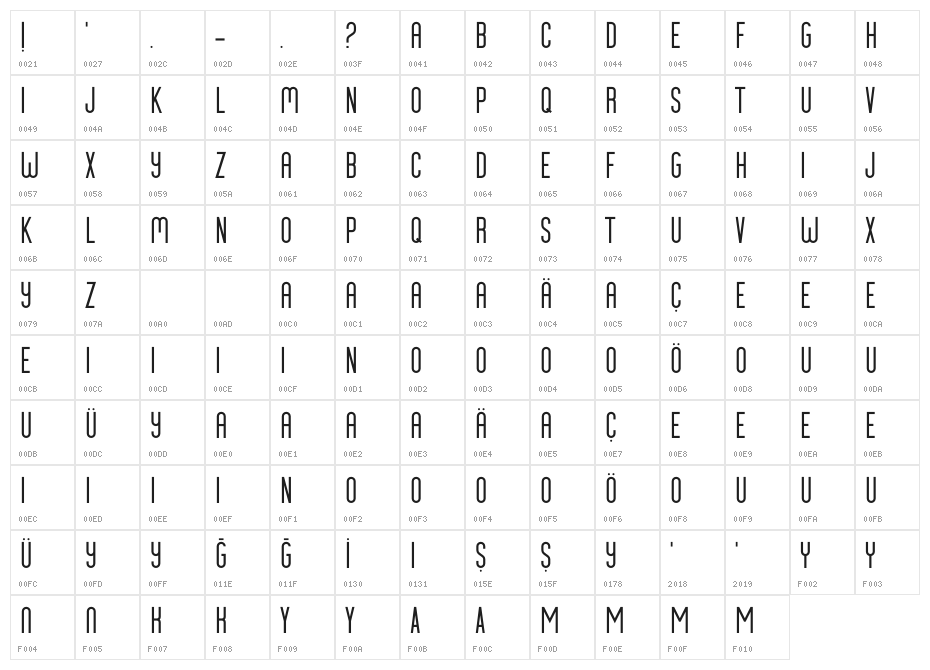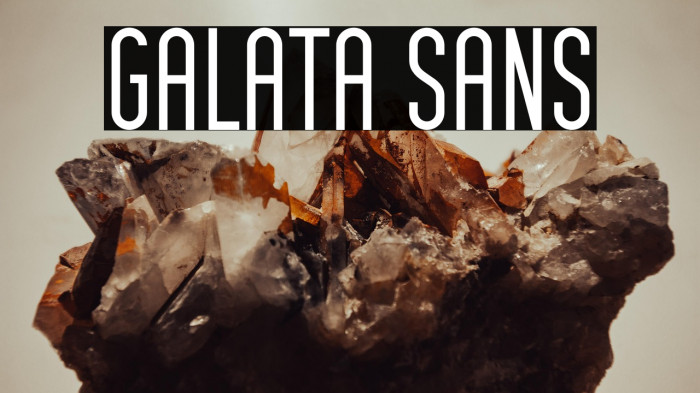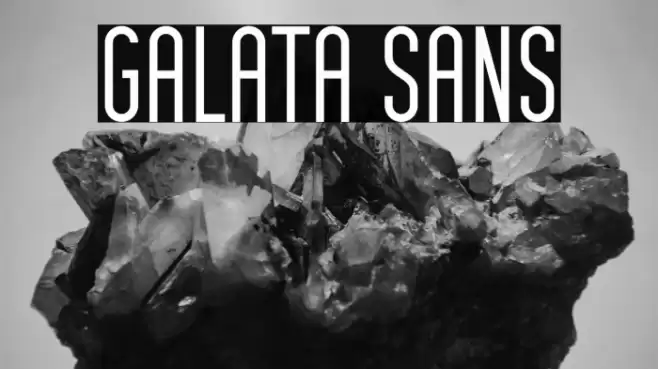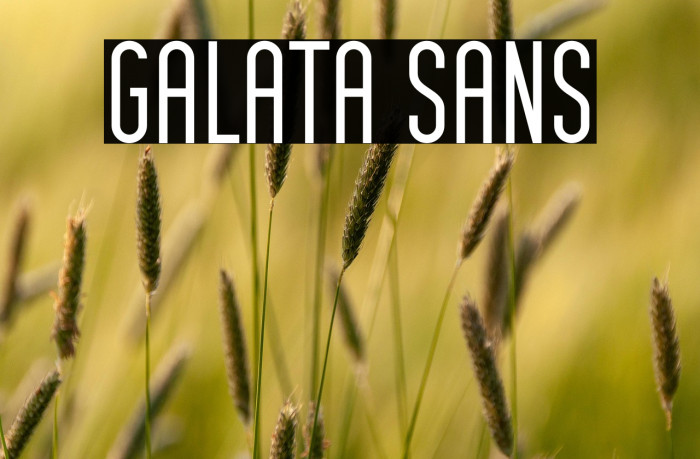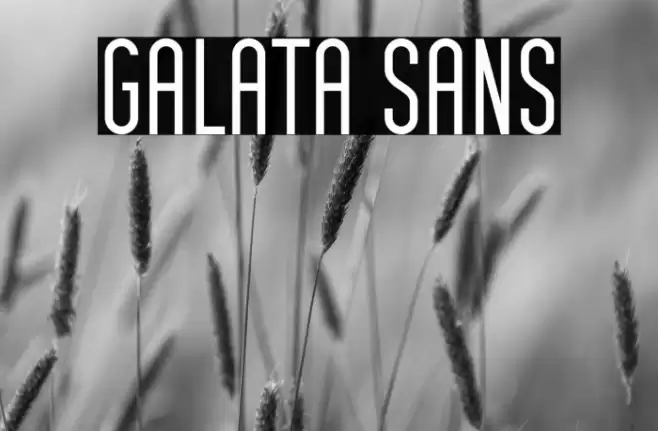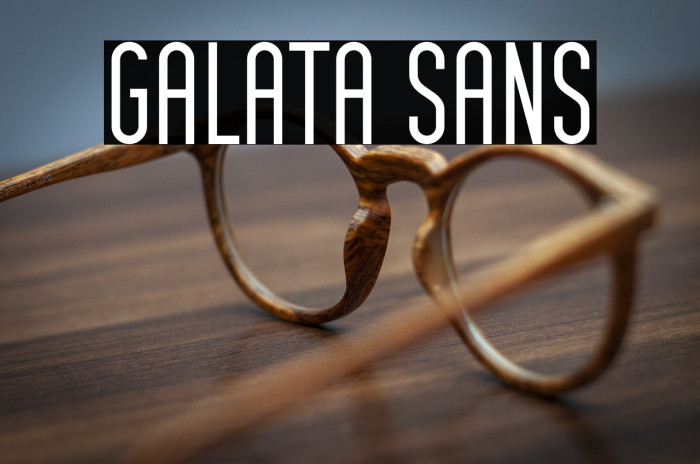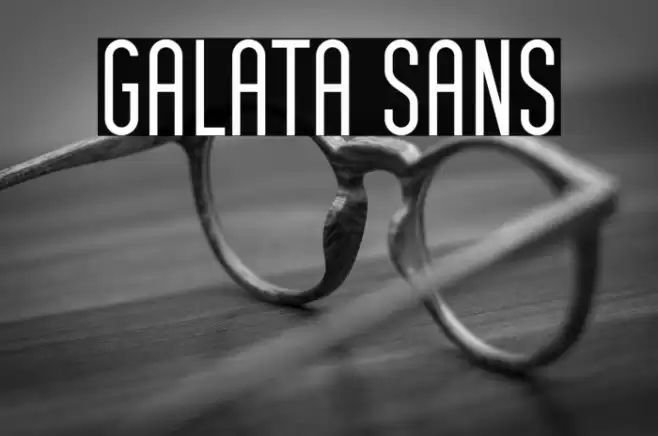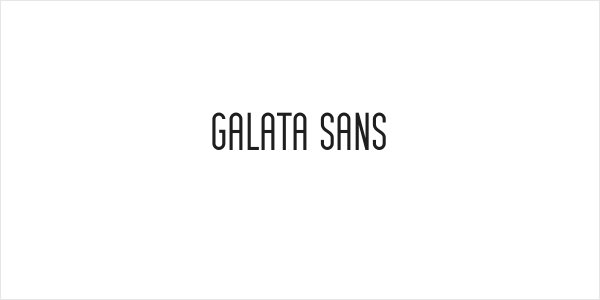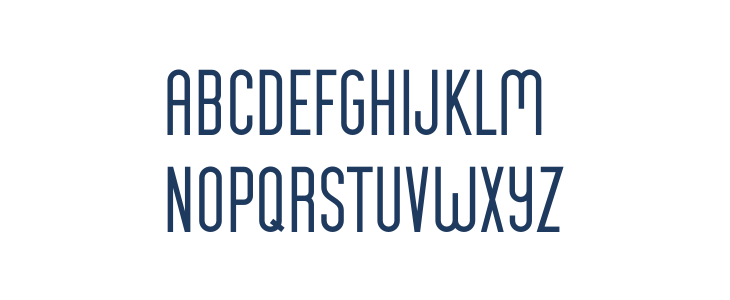
Galata Sans Font
Galata Sans Description
This font features a modern, geometric sans-serif style with clean lines and a uniform stroke width. The characters are tall and narrow, giving it an elegant and sophisticated appearance. The uppercase letters are distinct with a consistent height, while the lowercase letters maintain a similar structure, enhancing readability. The numerals are clear and straightforward, matching the overall aesthetic. Special characters are designed to blend seamlessly with the rest of the typeface, maintaining the geometric theme. This font is versatile, suitable for both digital and print media, and can be used to create a contemporary and professional look.